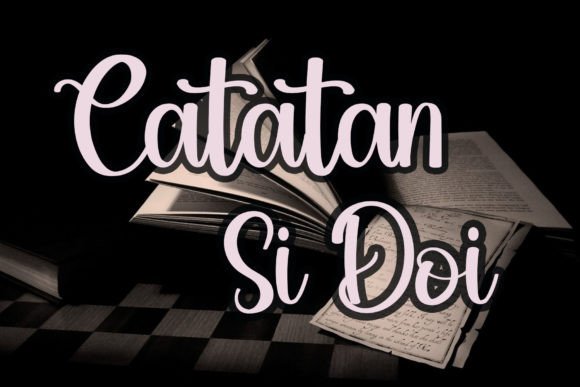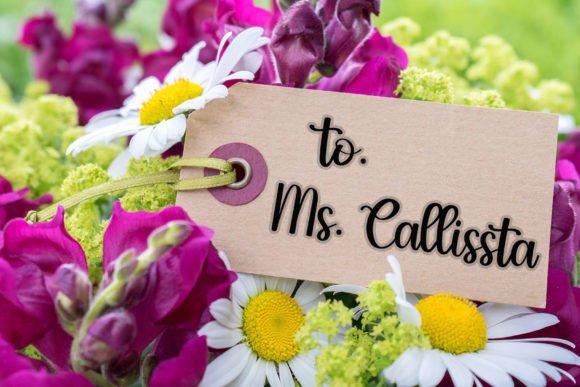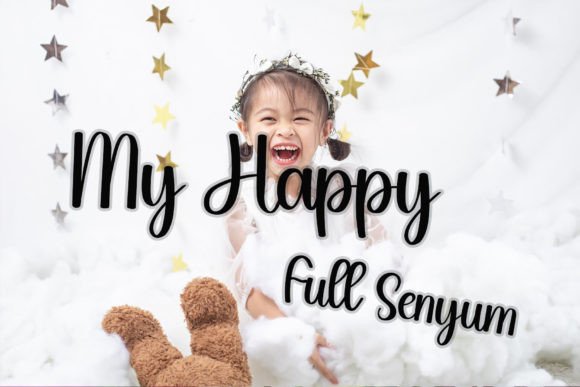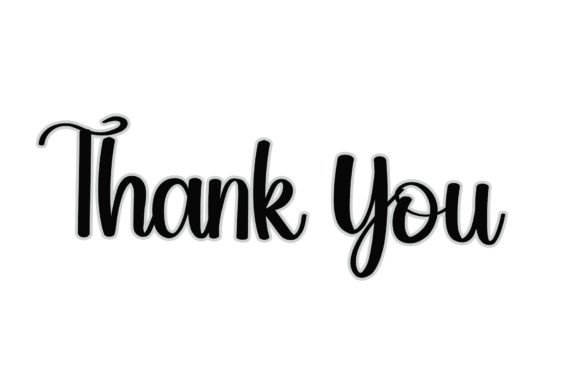
About Street Font
A Delicate and Elegant Handwritten Font
The Street Font is a delicate and elegant handwritten typeface that brings sophistication and charm to any design. With its smooth, flowing characters and well-balanced structure, this font is ideal for a variety of creative projects. Whether you’re designing wedding invitations, logos, greeting cards, or branding materials, the Street Font enhances your designs with a refined and artistic touch, making them feel both unique and timeless.
Perfect for Wedding Invitations and Special Occasions
If you’re working on wedding invitations or other special event stationery, the Street Font is the perfect choice. Its elegant yet delicate handwritten design gives your invitations a personalized and memorable feel. Whether it’s for a wedding, anniversary, birthday, or any other important event, this font adds a charming, sophisticated touch to your designs, ensuring they leave a lasting impression on your guests.
Ideal for Logos and Branding
For logos and branding materials, the Street Font offers a timeless, elegant look that works beautifully for businesses across different industries. Whether you’re designing a company logo, brand name, or product packaging, this font ensures your branding stands out with a distinctive, artistic touch. Its well-balanced characters give your branding a memorable identity that conveys professionalism and creativity.
Great for Greeting Cards and Personalized Messages
The Street Font is also ideal for creating greeting cards, thank you notes, and holiday messages. Whether you’re designing for Christmas, Valentine’s Day, or any other special occasion, this font brings a personalized and heartfelt touch to your messages. Its flowing, elegant design makes your cards and notes feel extra special, ensuring your messages resonate with your audience.
Versatile for Multiple Design Applications
The Street Font is highly versatile, making it suitable for a wide range of design applications. Whether you’re creating flyers, website headers, social media graphics, business cards, or posters, this font adds a refined, elegant touch to your designs. Its smooth strokes and flowing nature ensure that it works beautifully in both print and digital media, making it perfect for both personal and business projects.
Elegant, Timeless, and Legible
Despite its delicate and artistic design, the Street Font remains legible and easy to use. Its smooth, flowing characters ensure your text is clear and easy to read, even when used for longer passages or smaller sizes. Whether you’re creating headlines, captions, or full body text, this font balances elegance with readability, making it suitable for various types of design projects.
The Street Font is designed to be easy to use and integrates seamlessly into most design software. Whether you’re working on logos, greeting cards, stationery, or marketing materials, this font ensures your designs look polished and professional. Its flexibility allows it to be used for both large text and small text, making it a versatile font for any creative project.
Add Elegance and Charm to Your Designs with Street Font
If you’re looking for a delicate, elegant, and timeless handwritten font to elevate your designs, the Street Font is the perfect choice. Whether you’re designing wedding invitations, logos, greeting cards, or social media posts, this font brings a unique and artistic touch to your work. Let your creativity flow with the Street Font and create spectacular designs that leave a lasting impression.